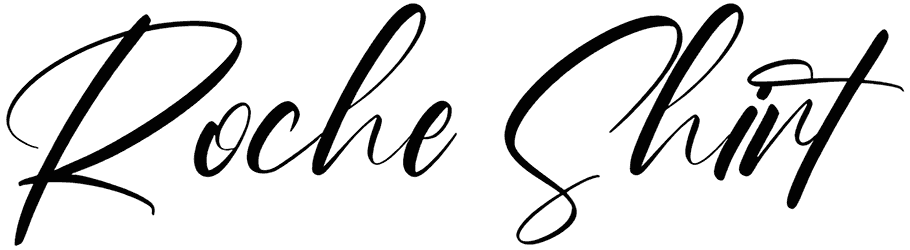
Roche Shirt Font
Let’s display a luxury and salient design with a unique handwritten font, such as Roche Shirt. With smooth and delicate hand-drawn letters, this calligraphy font can be harmonized with any official or unofficial project. The full cover of characters will provide you with an opportunity to use it for numerous designs, from business cards to Instagram posts.